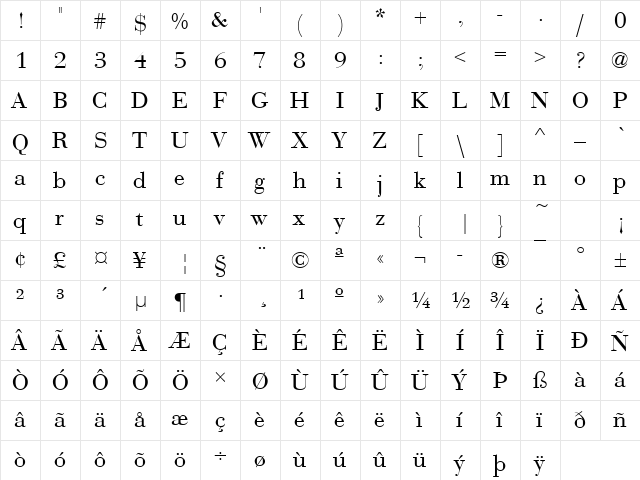
Bedini Regular
Design Context for Bedini Typeface
Bedini is a composed and adaptable typeface that performs quietly and consistently across a wide range of design contexts.